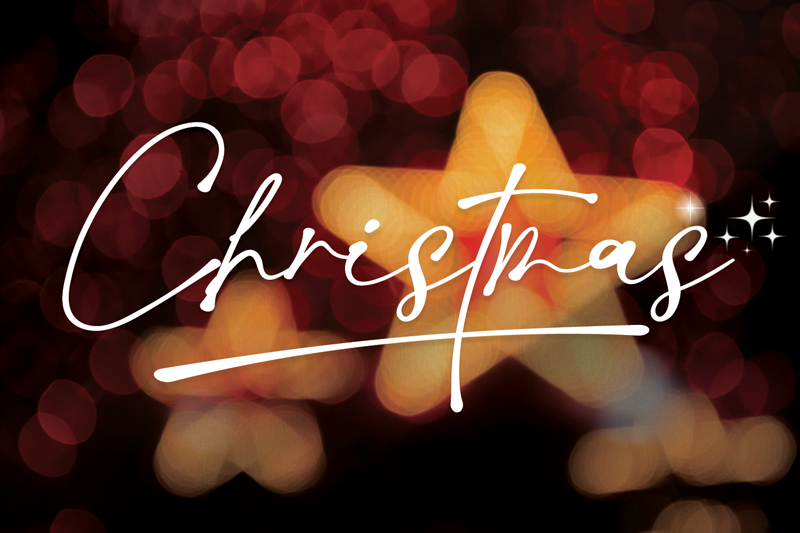
Christmas is a lovely script font featuring charming, playful characters that seem to dance along the baseline. Add this font to your most creative ideas, and notice how it makes them stand out! Attention : Christmas handwriting Font is prohibited to use this font for commercial purposes or for profit without the permission of the author/admin, without being known to use this font without permission, will be subject to sanctions 5x the specified price. This font is used only for demos (Demo license) If you want to use this font for commercial use please contact email: luluksurotul123@gmail.com or click the link below: https://www.creativefabrica.com/product/christmas-439/ref/698281/ If you want to see more other fonts, please click: https://www.creativefabrica.com/designer/behind-the-ink/ref/698281/ Any donations are very appreciated. Paypal account for donation: https://www.paypal.com/paypalme/luluk783 thanks. |